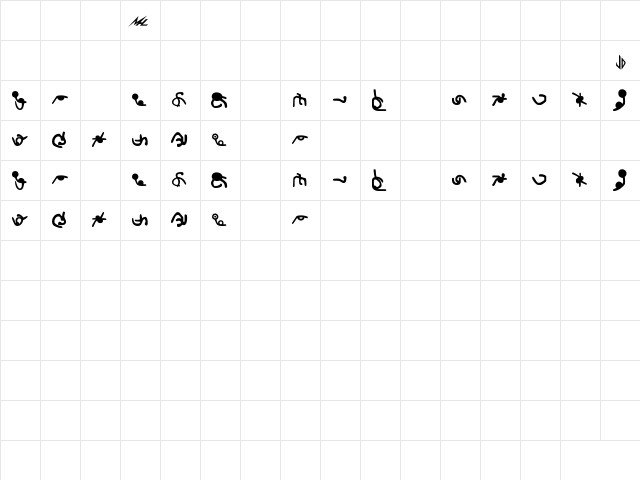
Kromagg Bold
Design Context for Kromagg Typeface
Kromagg is a composed and adaptable typeface that performs quietly and consistently across a wide range of design contexts. Its bold stroke weight gives it real presence on the page.